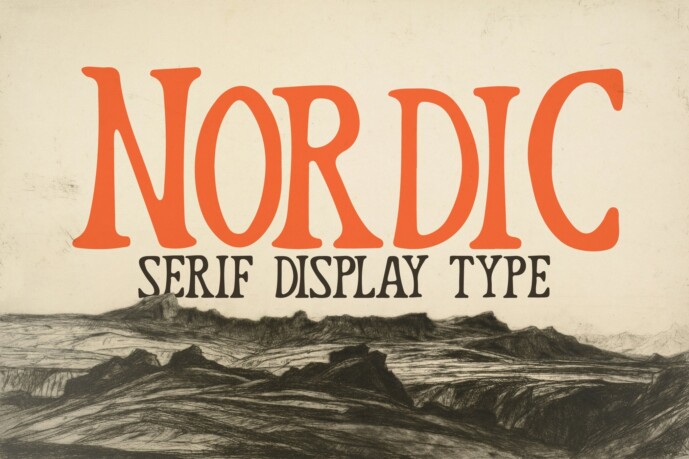
Nordic Font
Designer: Nu-Type
Introducing Nordic which has a Bold design and looks like a print. The font looks like a serif but the lines are irregular so it looks more natural. Suitable for use in various media, book covers, posters, typography, promotions, and other digital media.
FEATURES;
• Uppercase and lowercase letters.